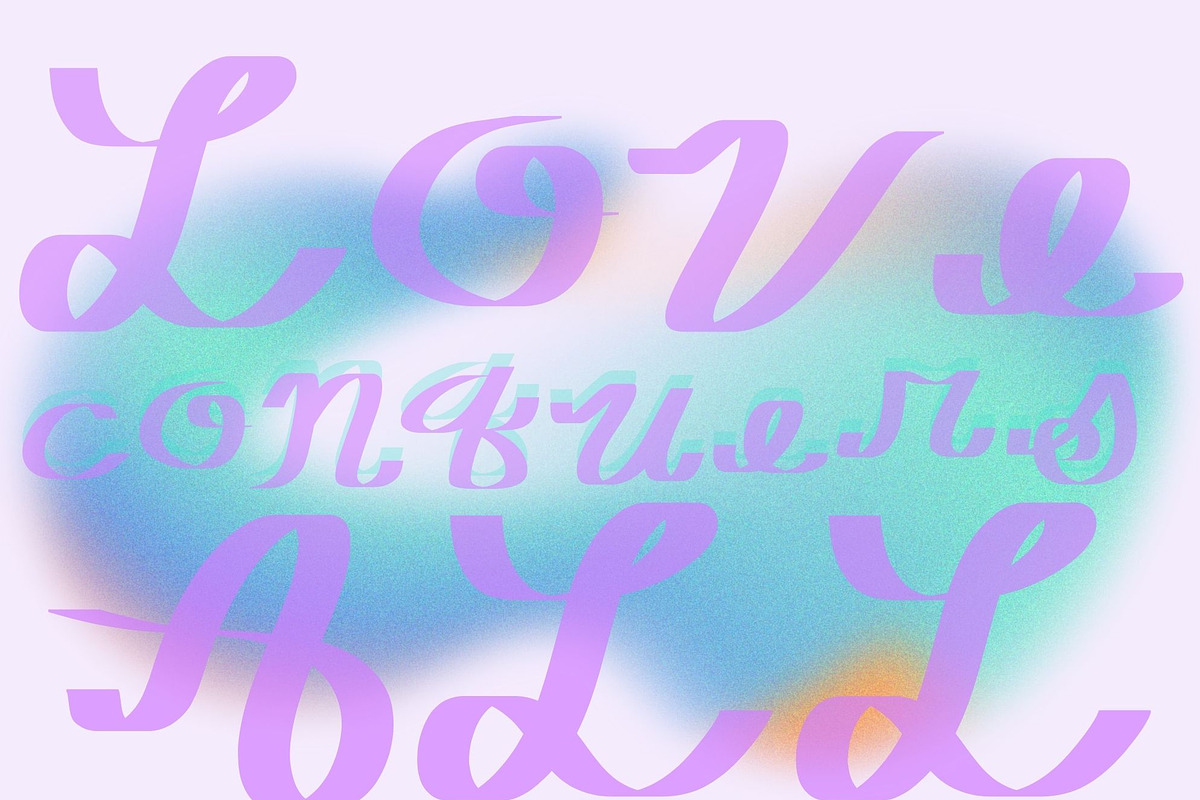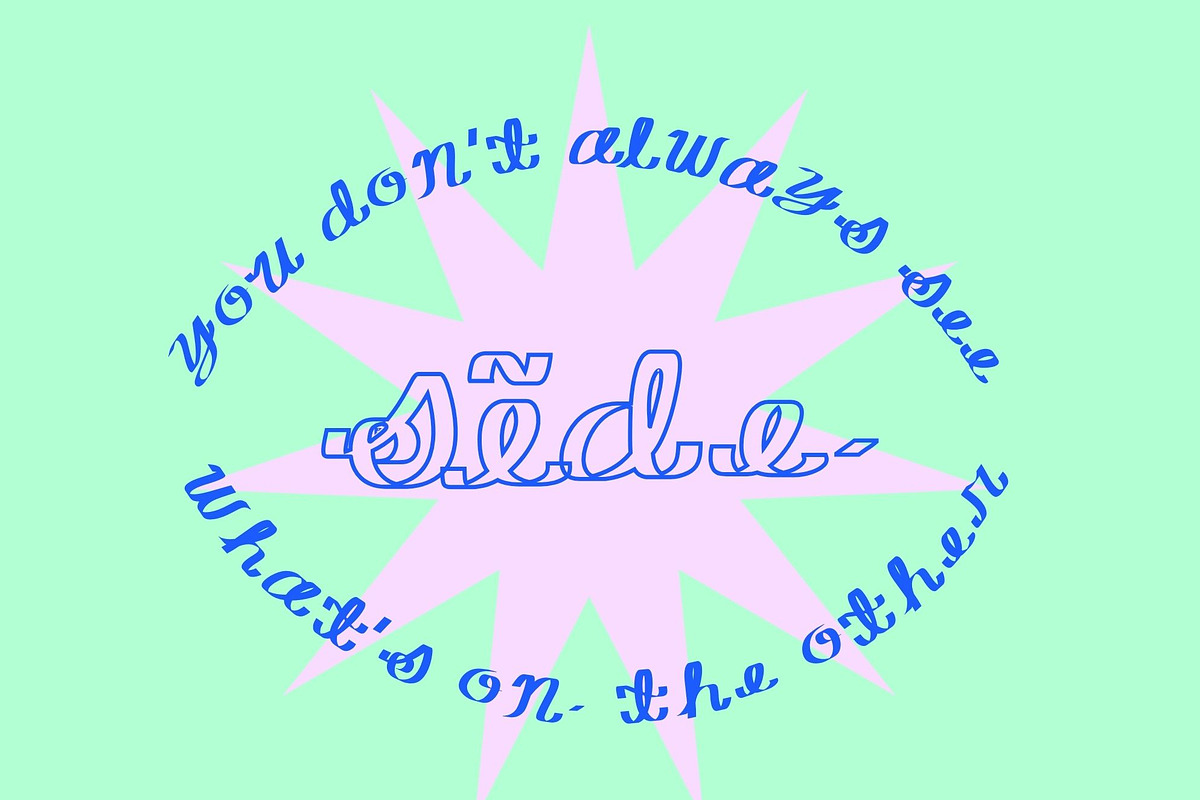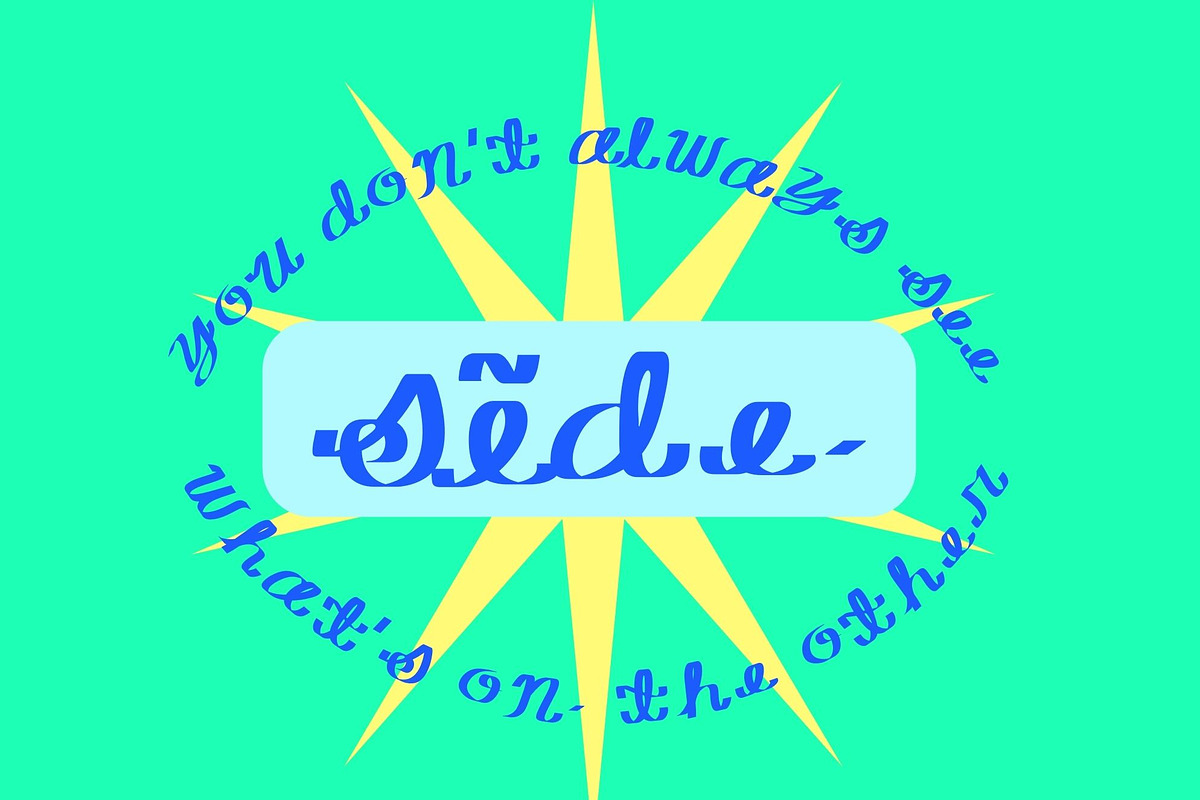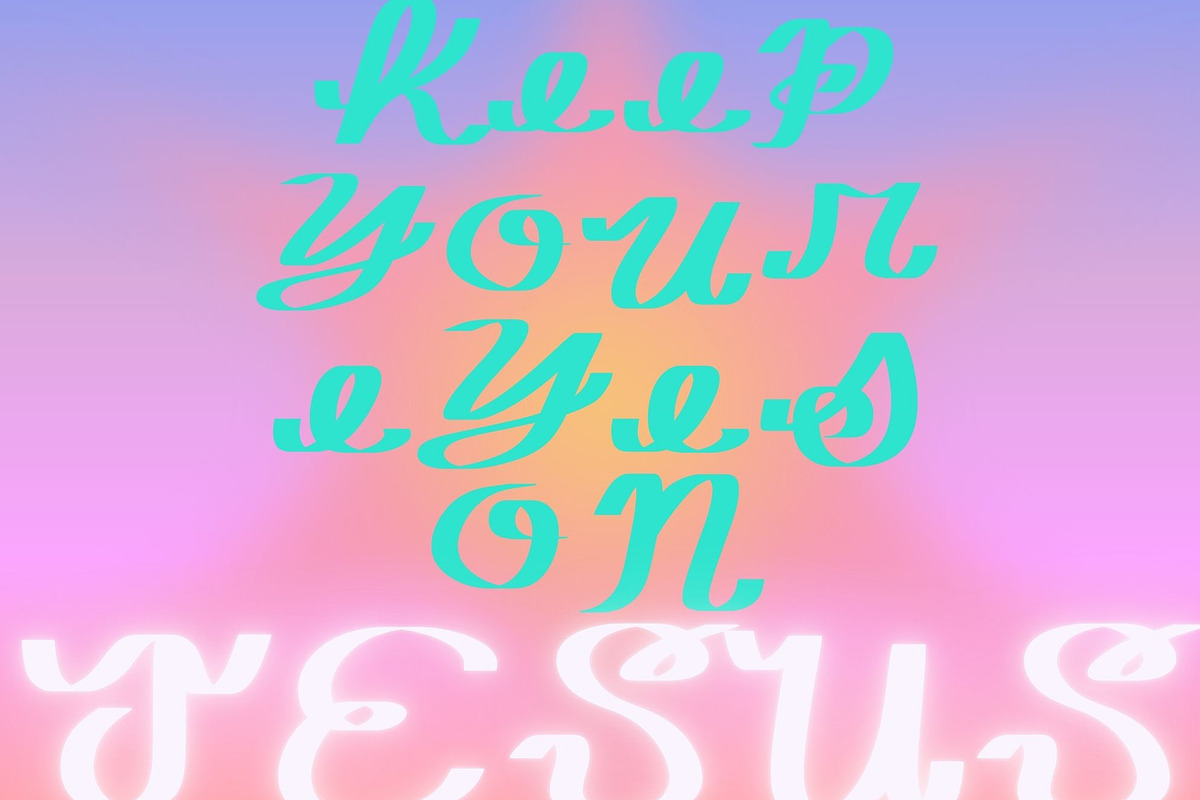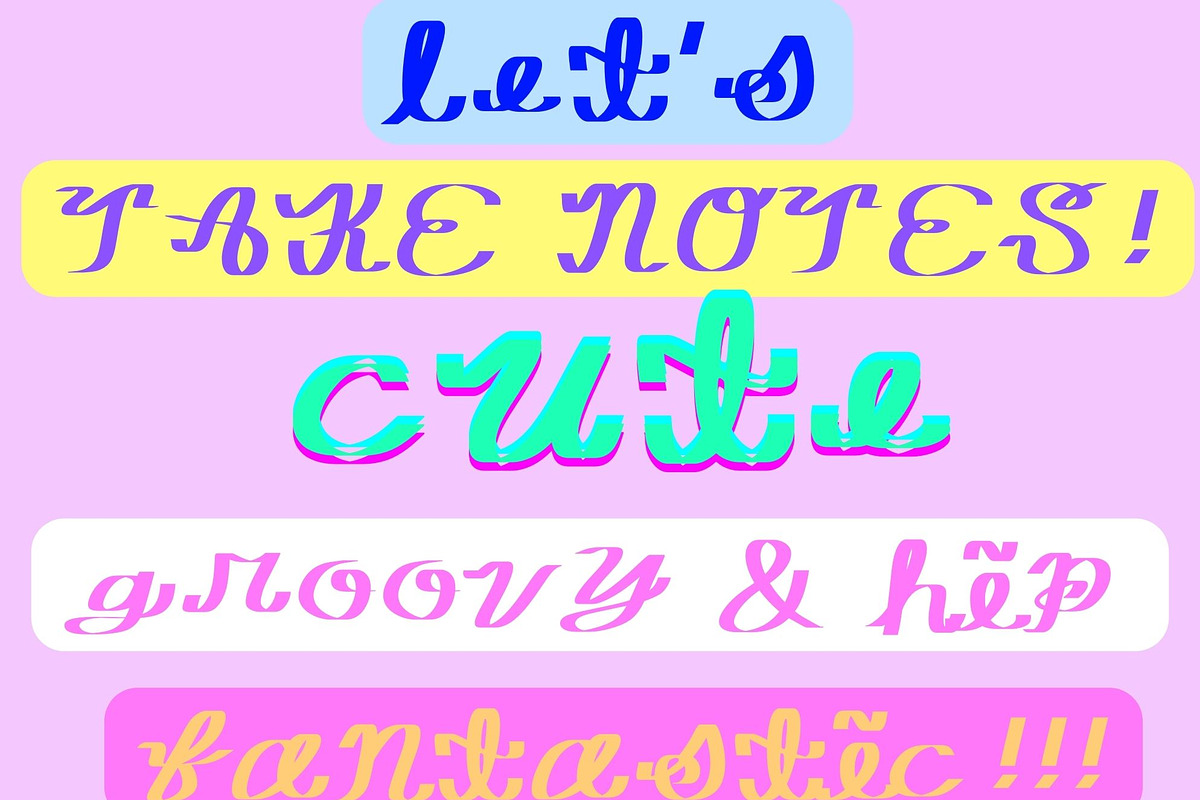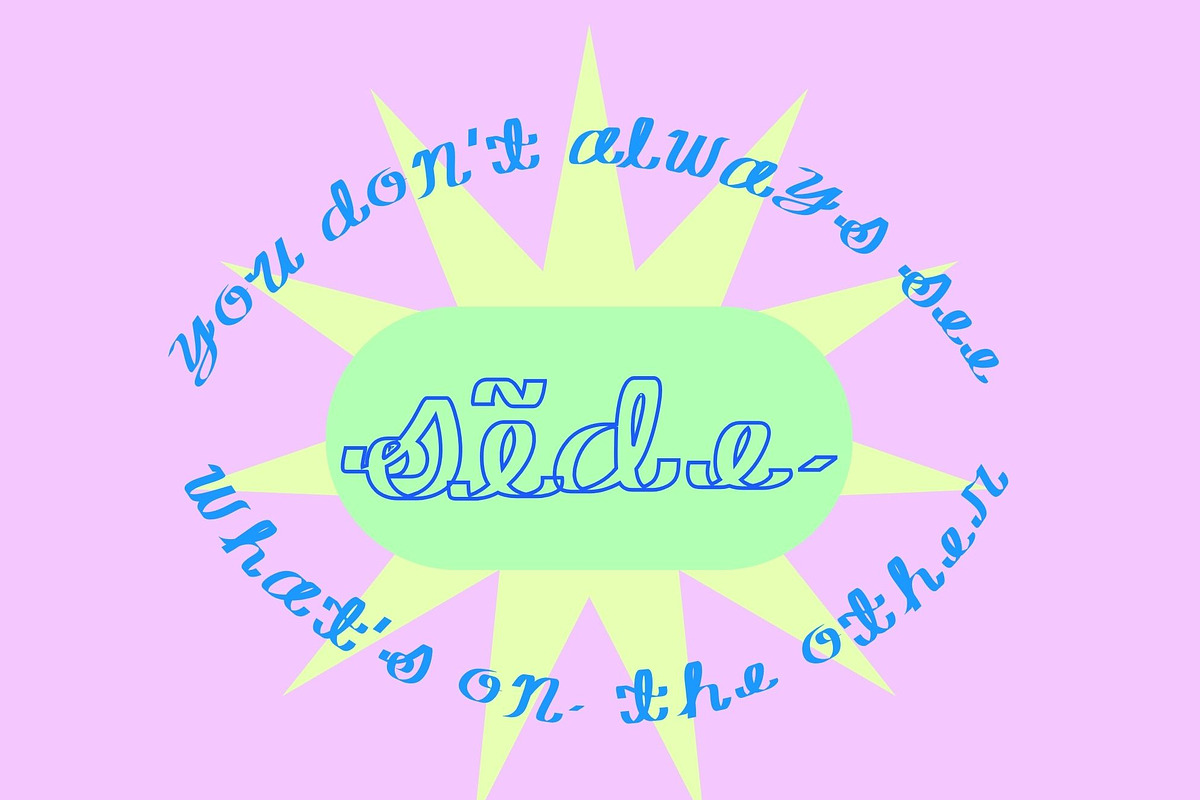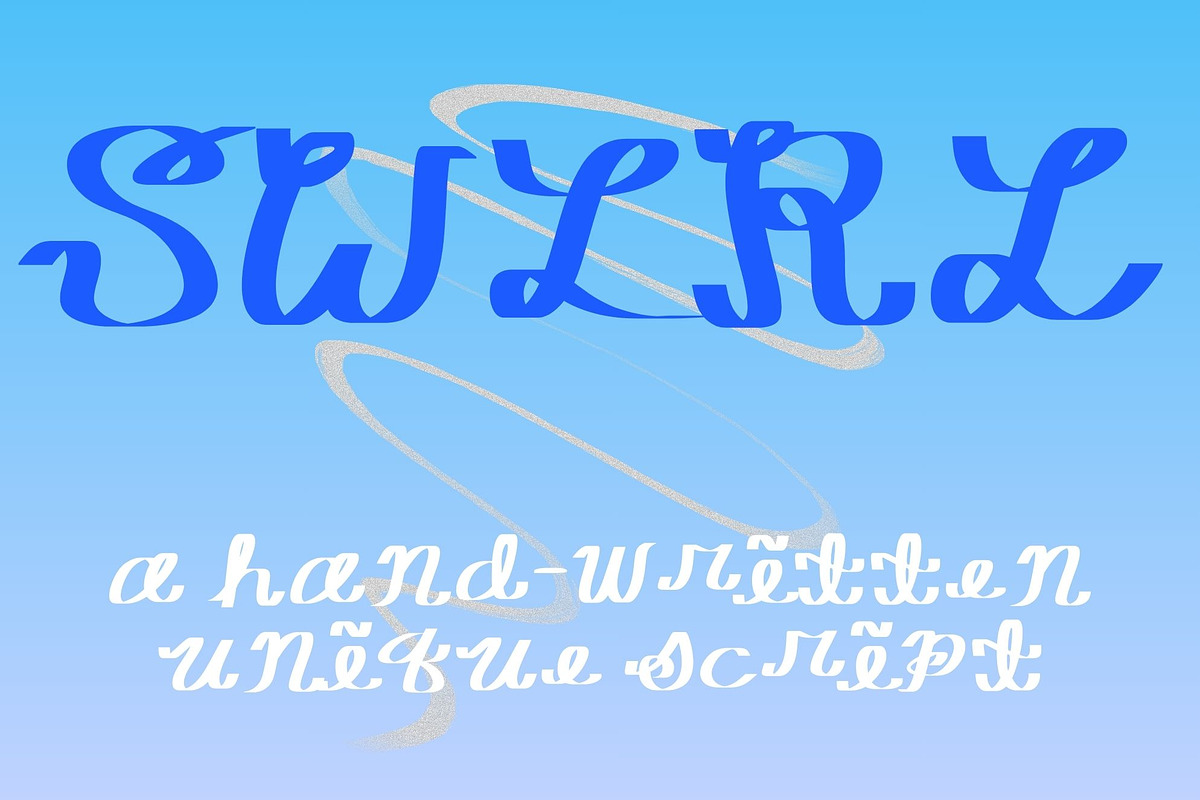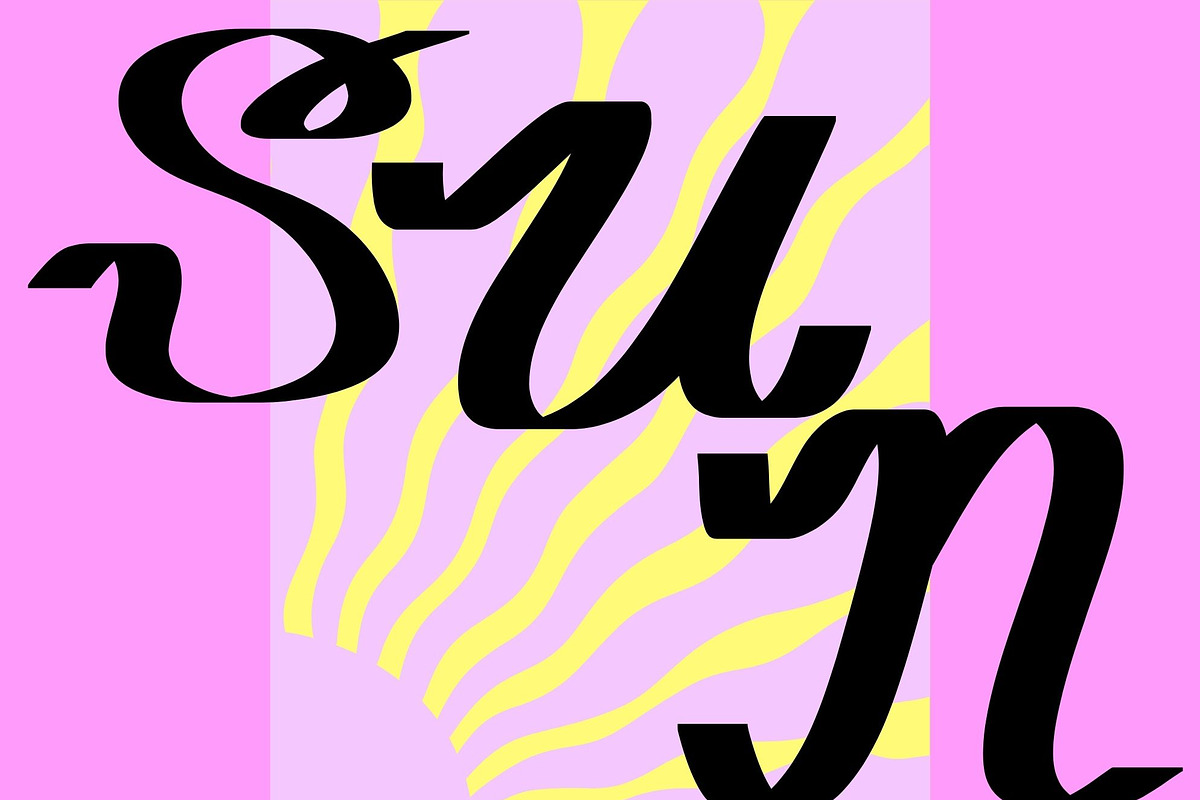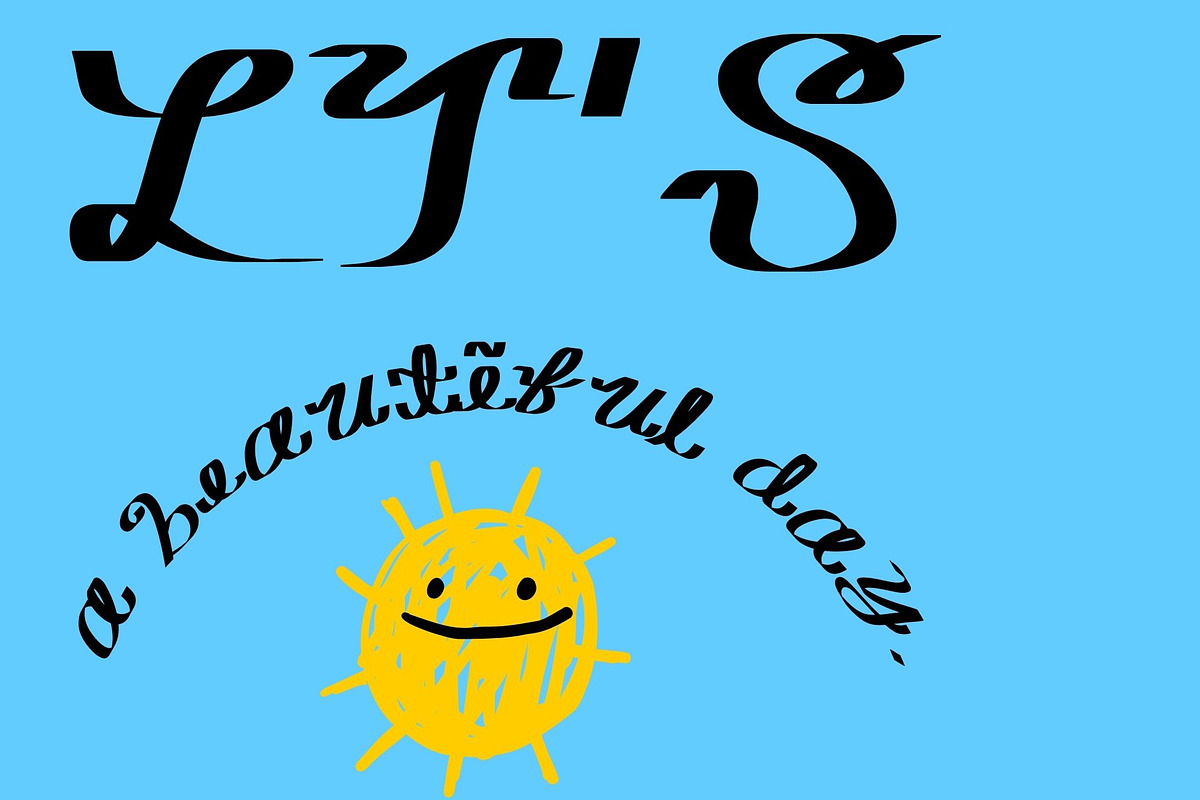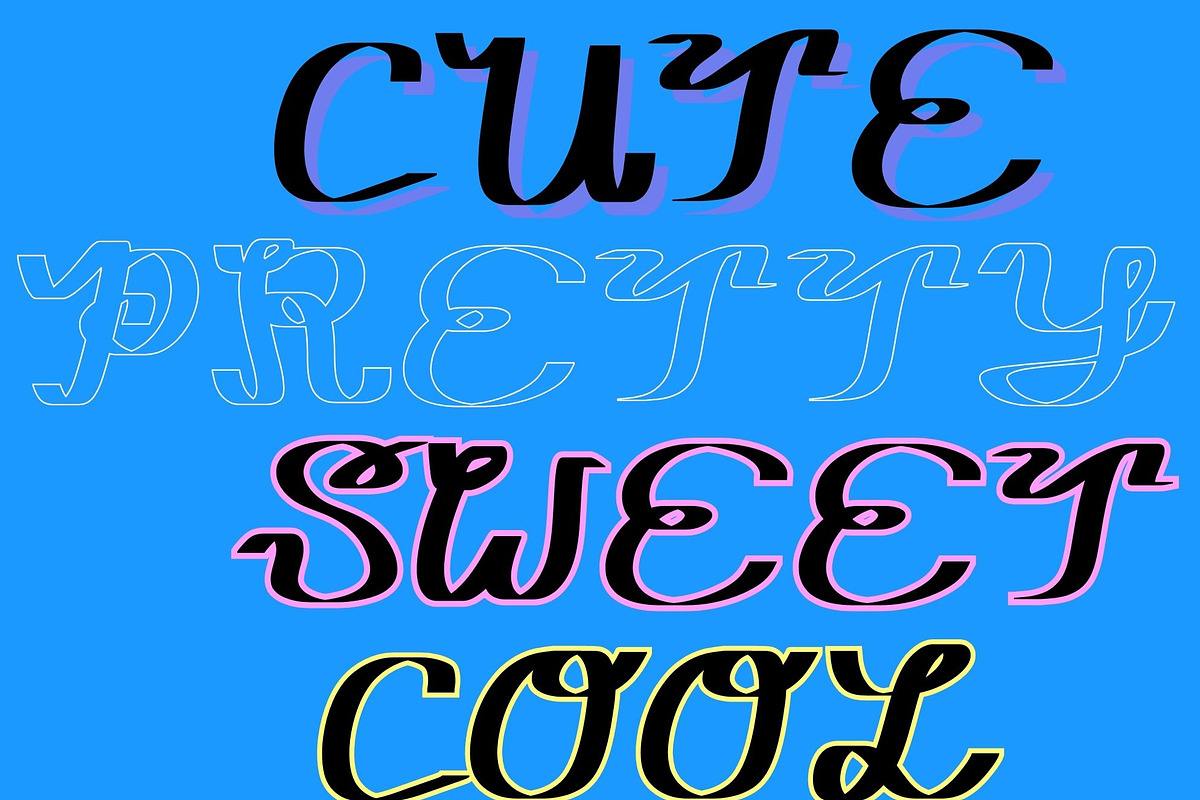
SWIRL a hand-drawn script
SWIRL. A uniquely hand-drawn font with swirly details. If your designs feature cutting-edge and one-of-a-kind elements, this font is for you. This Cursive-y script is an excellent display font with a swirly creative flair.
full alphabet upper case and lower case
symbols and numbers